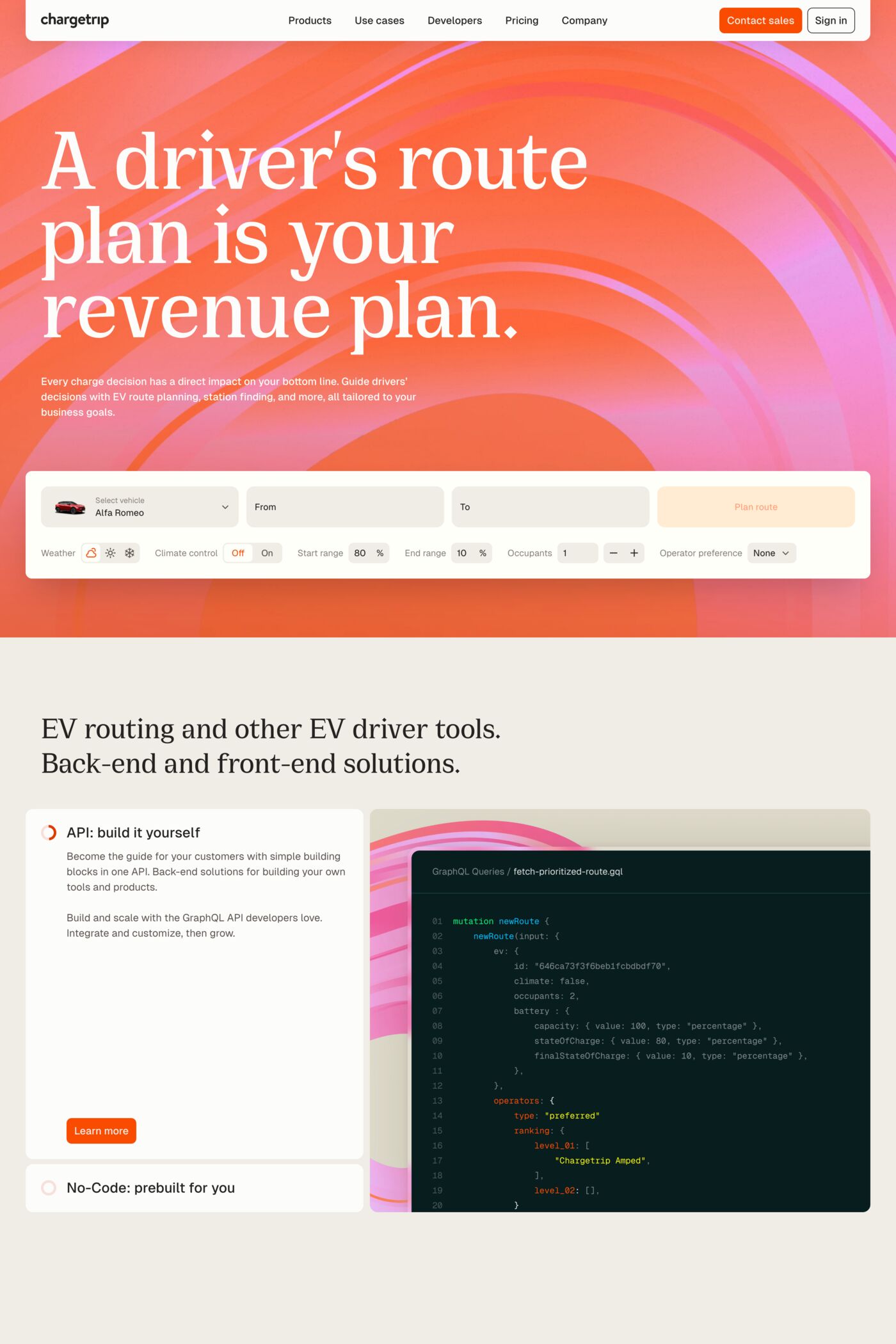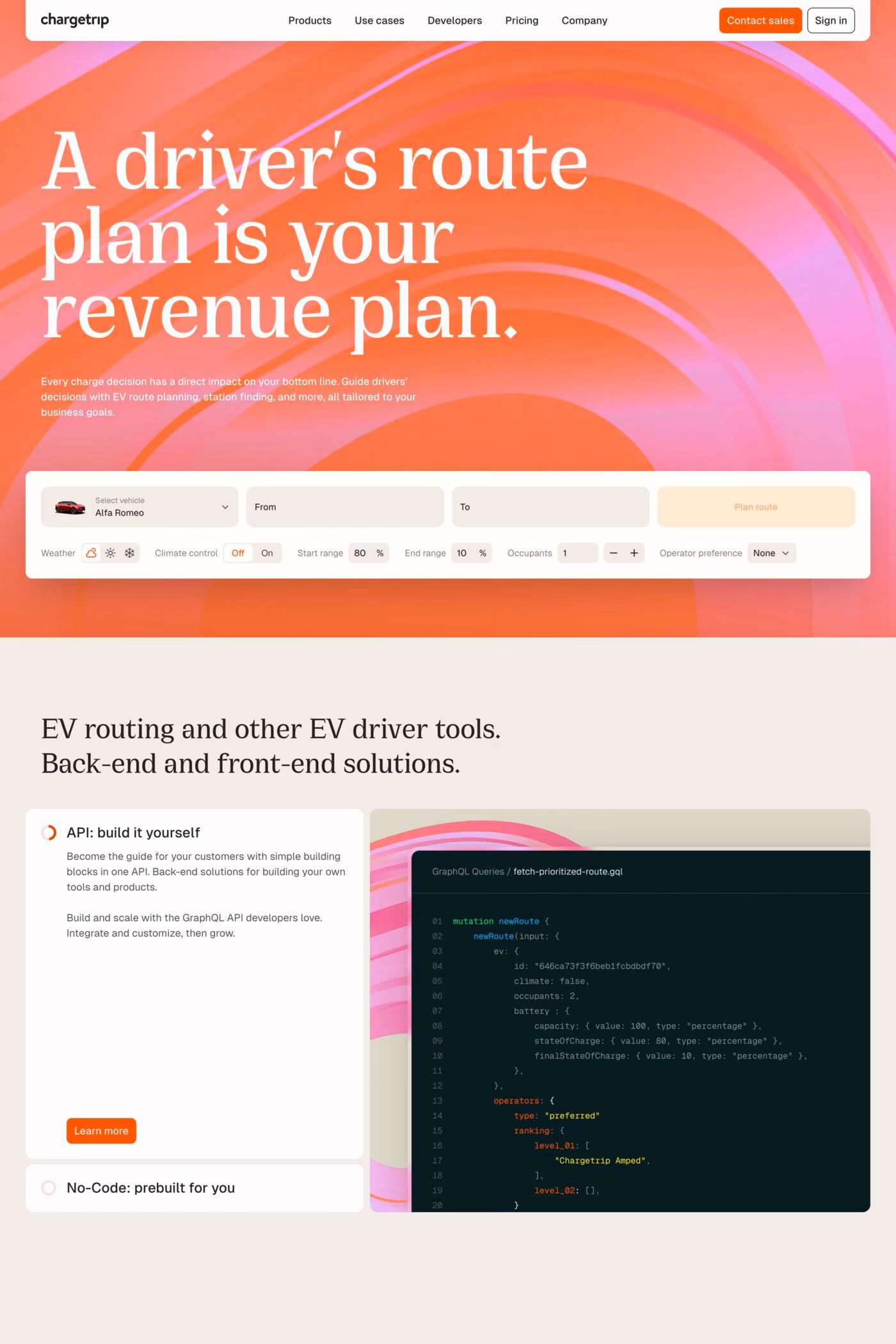
Cirka is a serif typeface from Pangram.
Cirka is an elegant typeface that combines classic forms & a vertical axis with sharp, pointy serifs. It works great set large on posters or headers, or small, as body text.